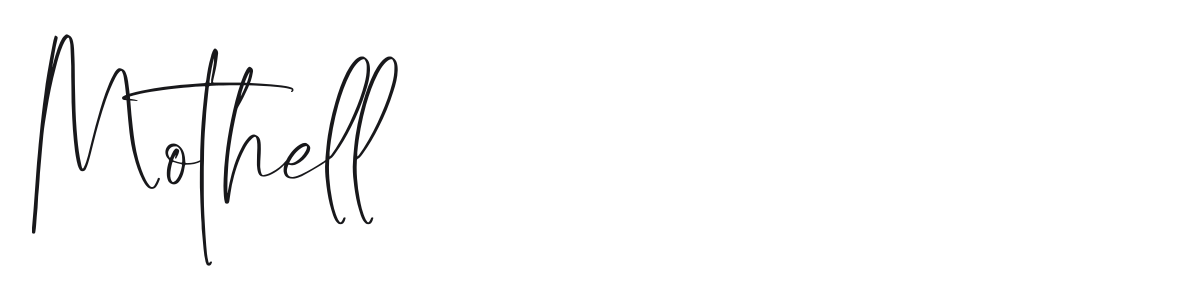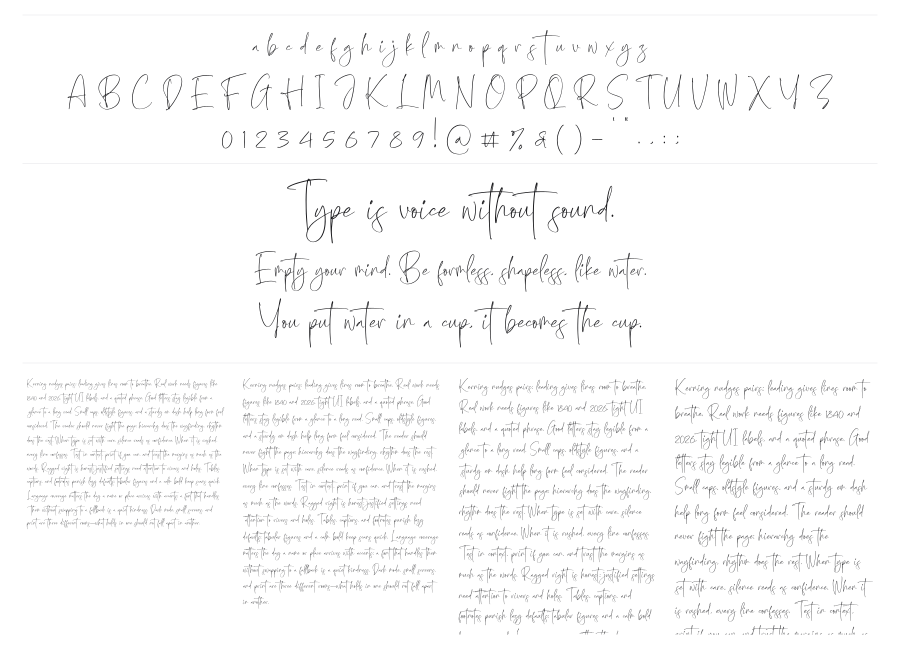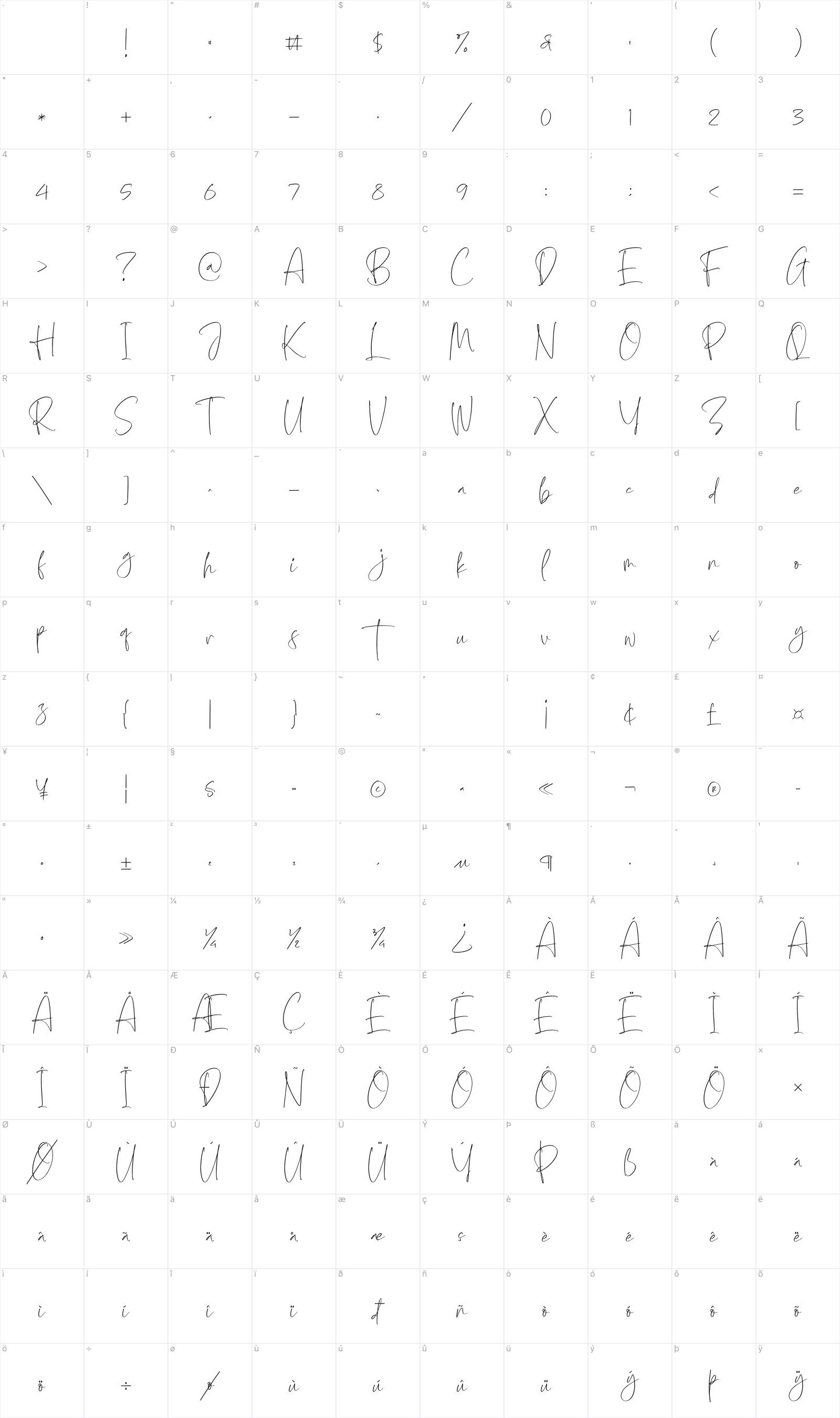
Mothell
Mothell is a light, flowing casual script with long looping ascenders and a natural handwritten rhythm. The thin strokes and relaxed letterform connections give it an authentic pen-written quality without feeling stiff or overly formal. It reads best at large sizes, where the sweeping loops and graceful spacing can breathe.